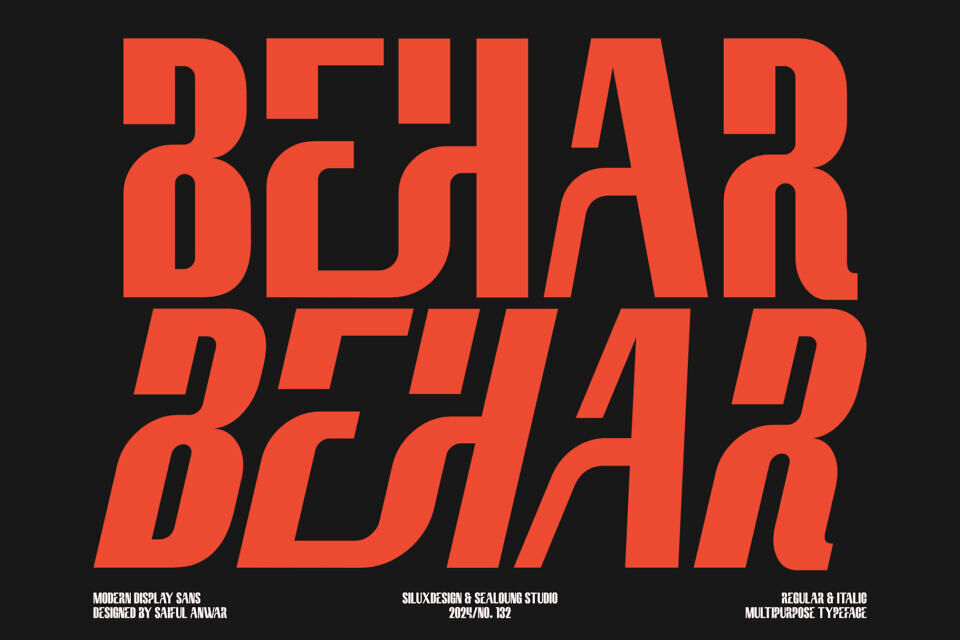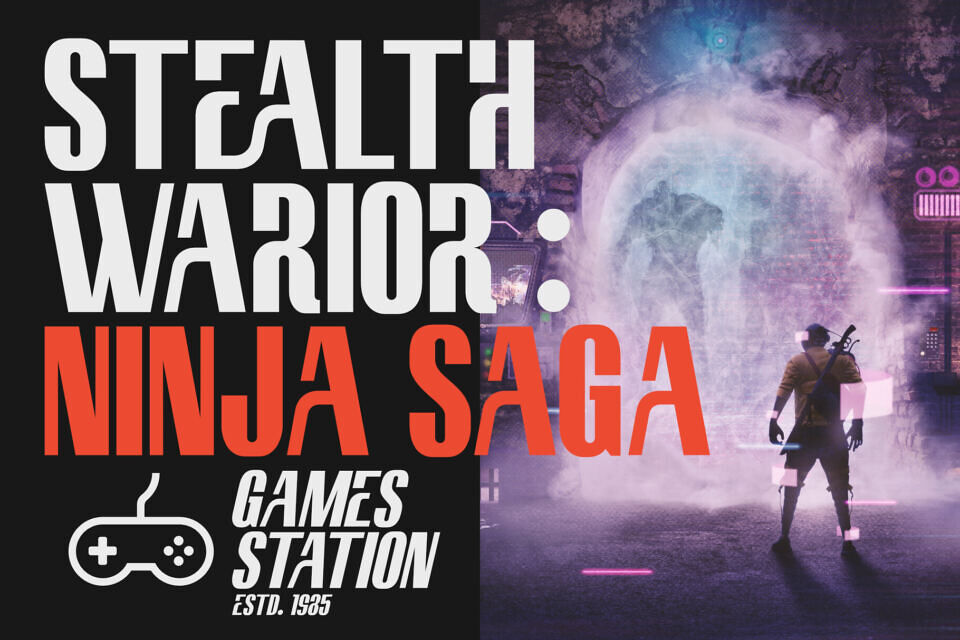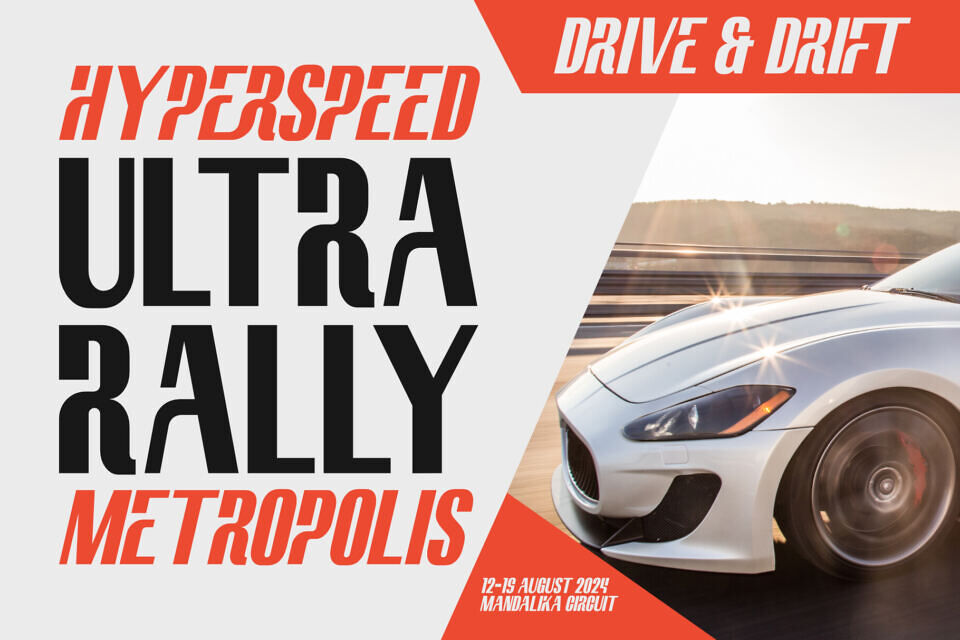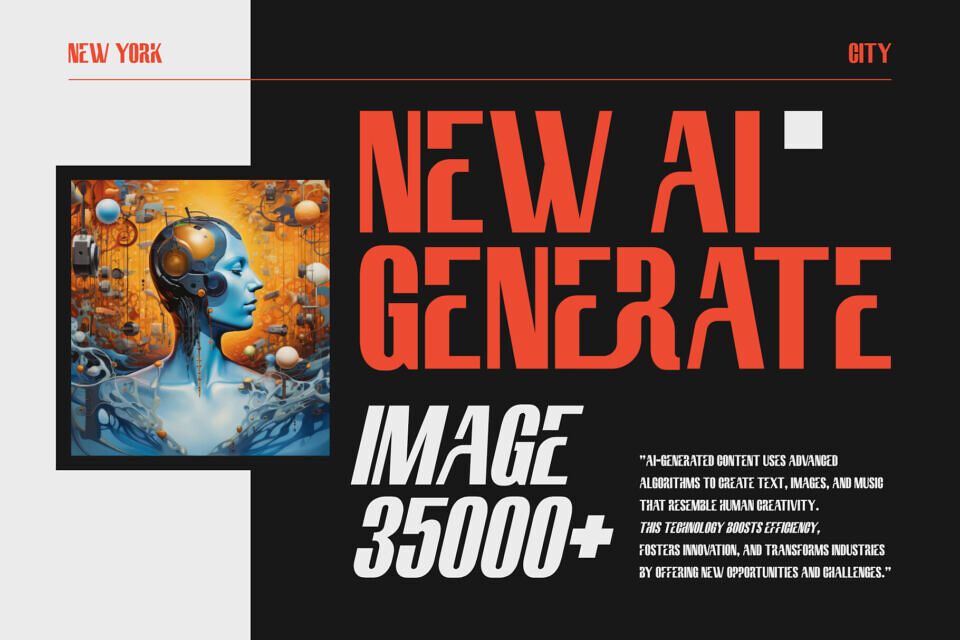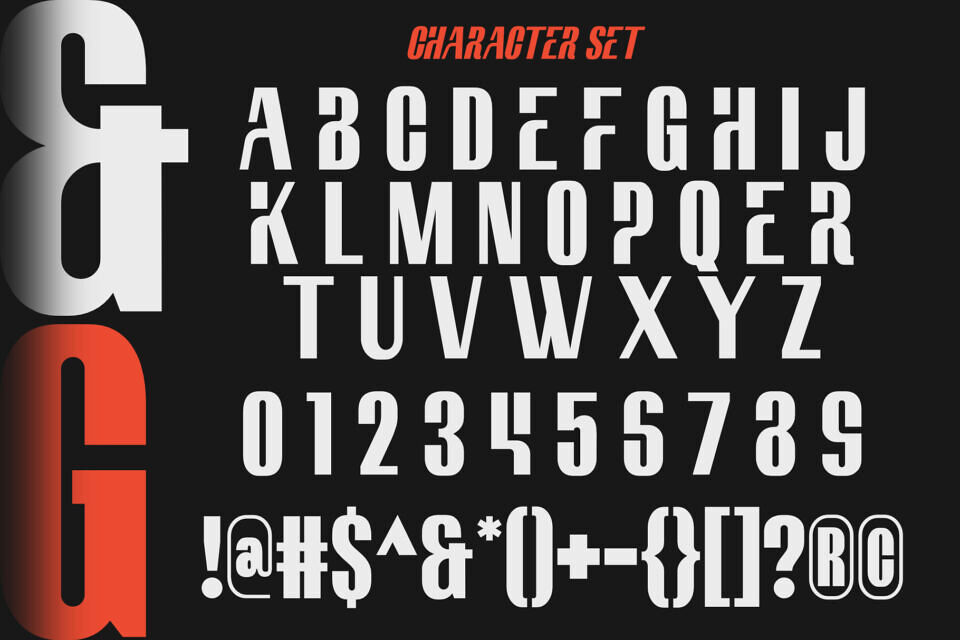
Behar Font
Behar is a modern display sans font that exudes sophistication and style. With its sleek lines and contemporary design, Behar is perfect for projects that require a touch of elegance. What sets Behar apart are its unique ligatures, which add a special flair to your typography.
These ligatures seamlessly blend characters together, creating a harmonious and flowing look. Whether you’re designing a logo, heading, or any other creative project, Behar is sure to make a statement.